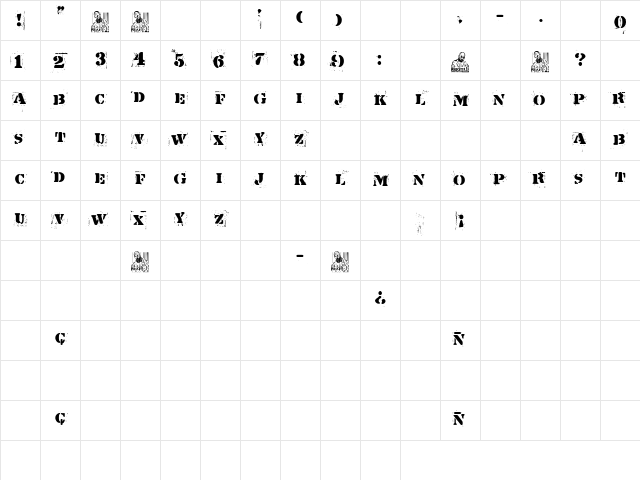
La Plantilla Dirty Regular
Designer: Woodcutter Manero
Design Context for La Plantilla Dirty
La Plantilla Dirty is a composed and adaptable typeface that performs quietly and consistently across a wide range of design contexts.
Pro Tip: Use La Plantilla Dirty in both headline and body roles to test its range before committing to a single application.